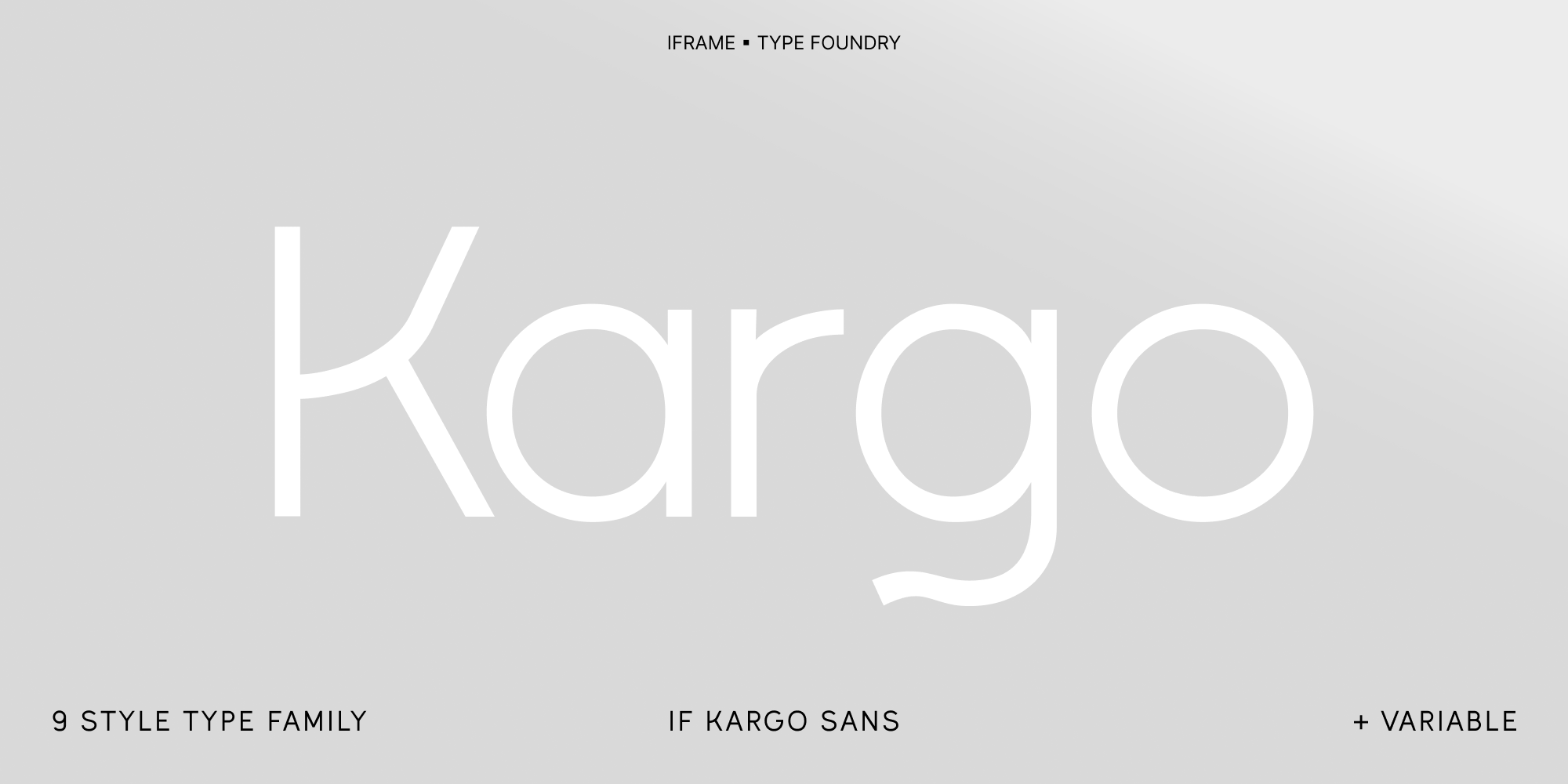
The Kargo Sans Font is a robust and highly functional sans-serif typeface, characterized by its clean, strong lines and a pragmatic, utilitarian aesthetic often reminiscent of industrial signage or logistics branding. Imagine its clear, efficient forms providing a sturdy foundation for transportation company logos, adding an authoritative touch to public information displays, or forming the backbone of digital interfaces for complex logistical systems. Its straightforward design and efficient use of space also make it an excellent choice for corporate reports, technical manuals, urban wayfinding systems, and any content where clarity, reliability, and a no-nonsense approach are paramount. Kargo Sans Font excels in delivering a precise, uncluttered, and highly legible experience, ensuring your message is conveyed with undeniable precision and robust modernity, making it a stellar choice for demanding communication needs.
What makes Kargo Sans Font so exciting is its remarkable ability to convey strength and efficiency without sacrificing legibility. It embodies a pure, functional aesthetic, making it ideal for brands and projects that need to communicate reliability, order, and a clear, direct message. This font isn't just about conveying text; it's about setting a tone of dependable performance and streamlined operations. It allows designers to create visuals that are both visually impactful and remarkably readable, making it an invaluable asset for those looking to communicate a sense of power, precision, and contemporary flair in a straightforward and impactful form. Its versatility ensures it performs beautifully across various mediums, from small screen text to large-format displays.
The Kargo Sans Font family is typically structured to offer a comprehensive range of weights and styles to amplify its utilitarian and modern appeal. Beyond the primary Kargo Sans Regular typeface, you might find companion styles such as a more impactful Kargo Sans Bold for stronger emphasis, or perhaps Kargo Sans Light for a delicate, airy quality while maintaining its overall robust structure. Given its functional leanings, the family may also include variations in width (e.g., Condensed or Extended) to maximize versatility in different layouts, or specialized features for unique design needs in technical or data-heavy applications. These diverse family members provide designers with the flexibility to establish a clear typographic hierarchy and maintain a consistent, cutting-edge, and often minimalist aesthetic across all elements of their project, from dominant headlines and logos to subtle design accents.